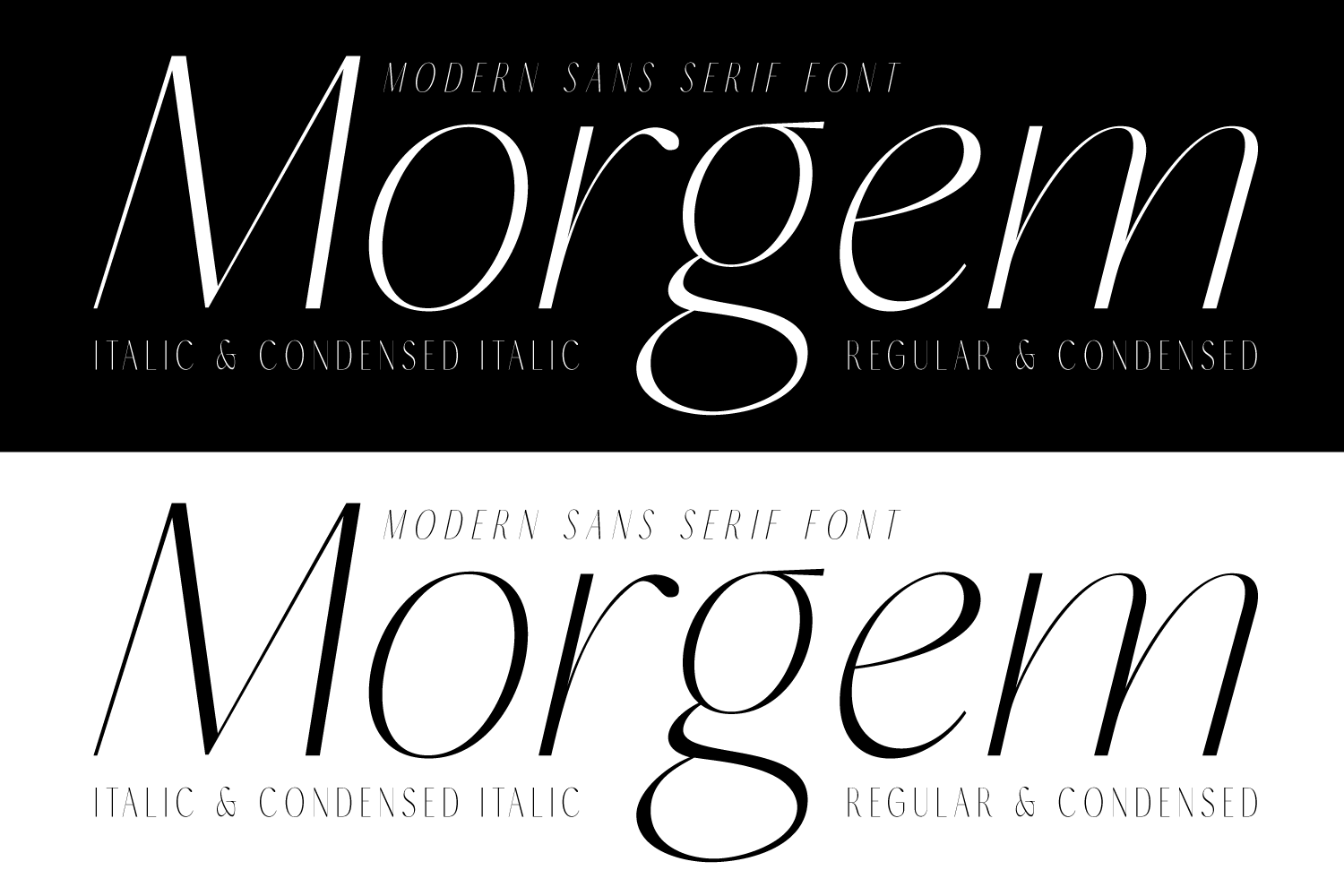
Morgem – Modern Sans Serif Font
Morgem is a beautiful modern sans-serif font that is perfect for wedding invitations, branding, logos, product packaging and so much more. With its clean lines and distinctive design, Morgem offers endless creative possibilities.
It comes in Regular, Italic, Condensed, and Condensed Italic font styles, and includes uppercase and lowercase letters, numbers, punctuation, ligatures, alternates, and multilingual support.”
OpenType Features :
- Kerning
- Stylistic Sets